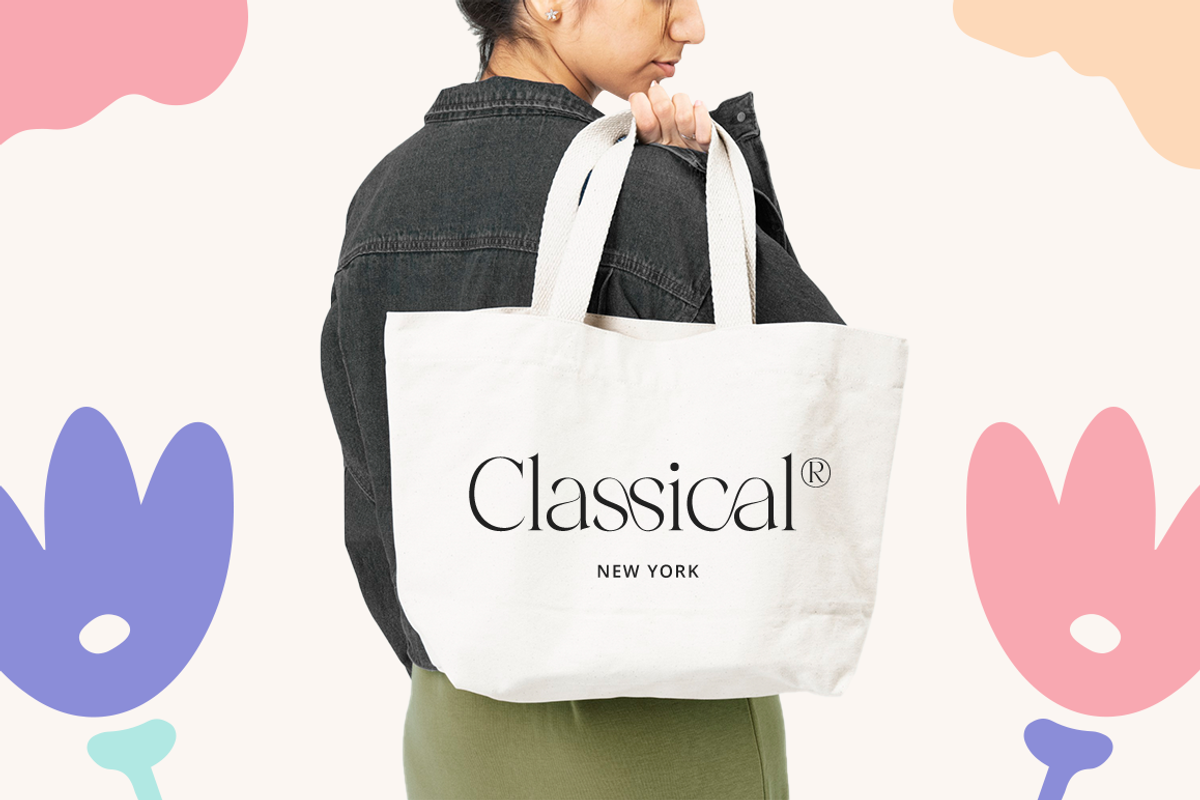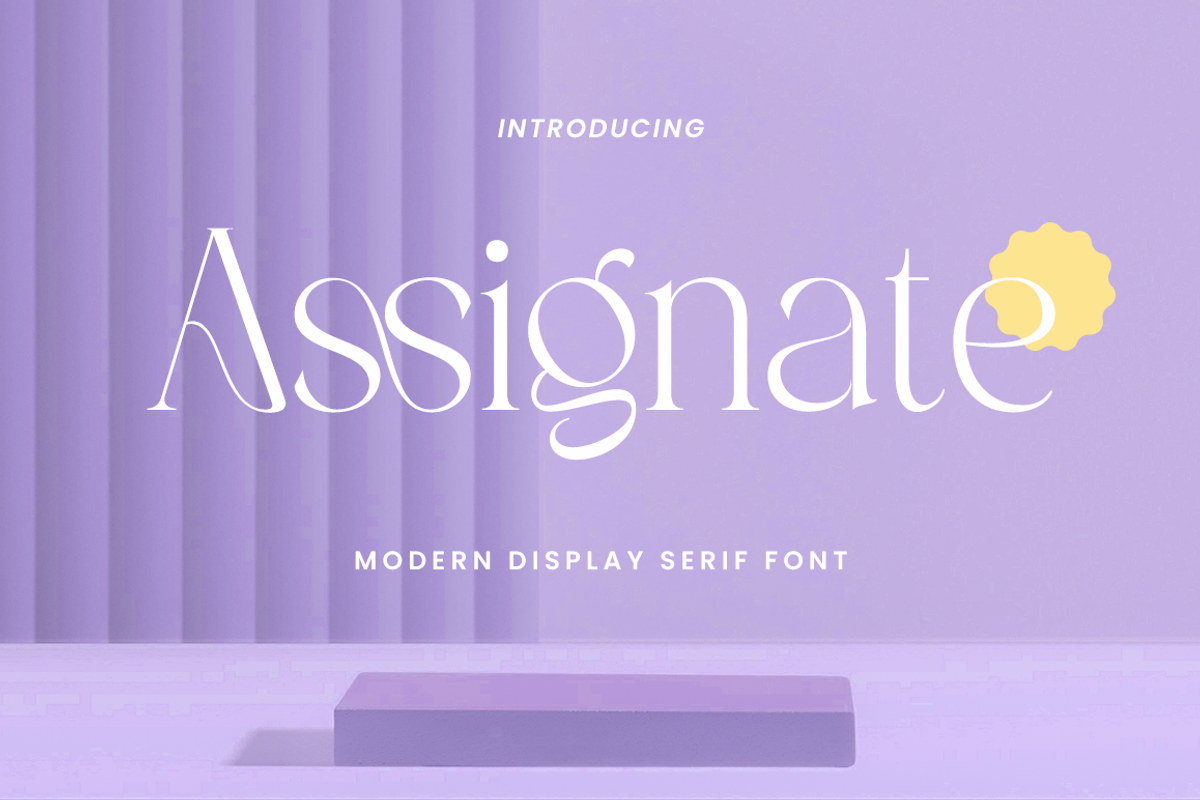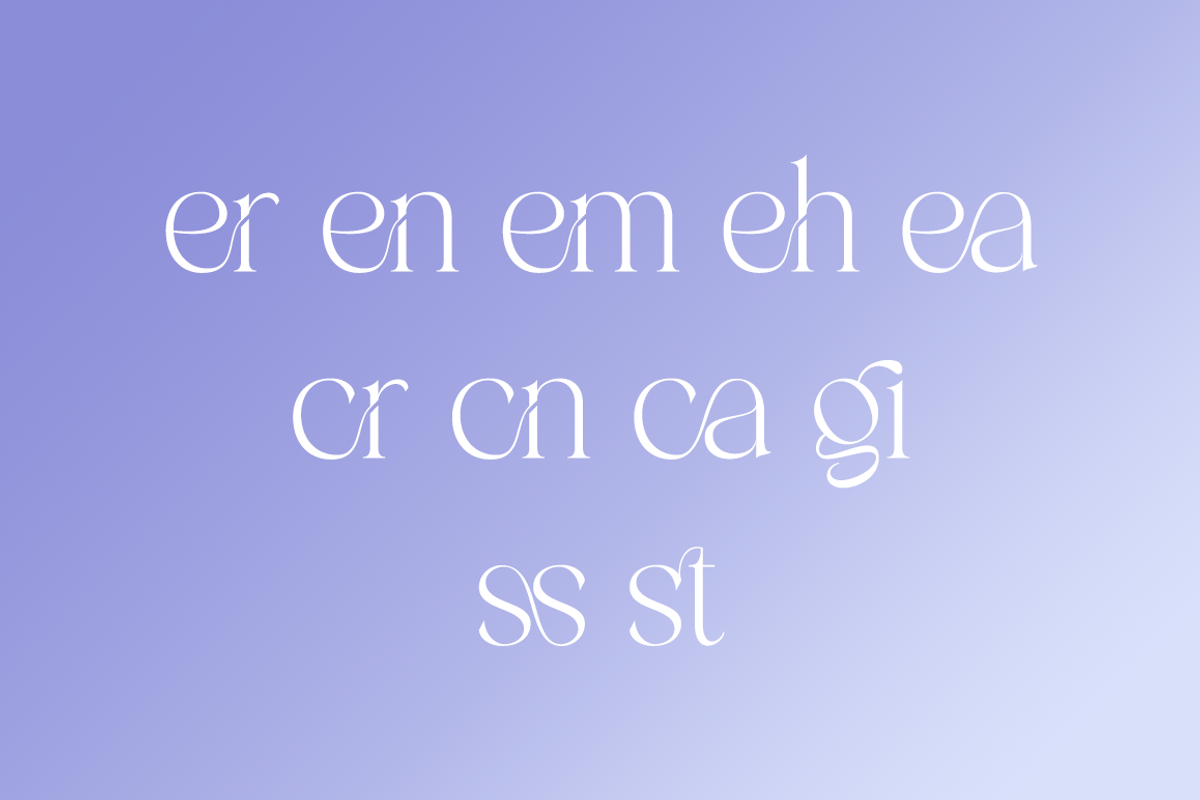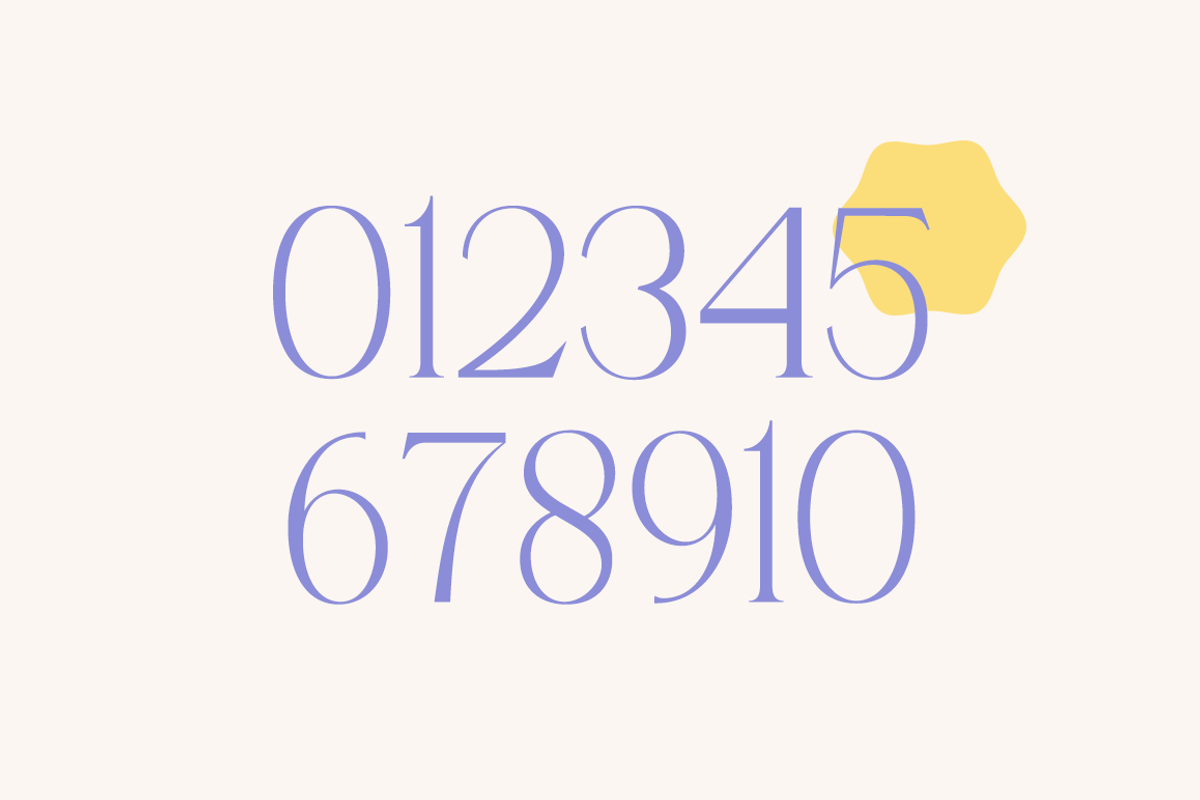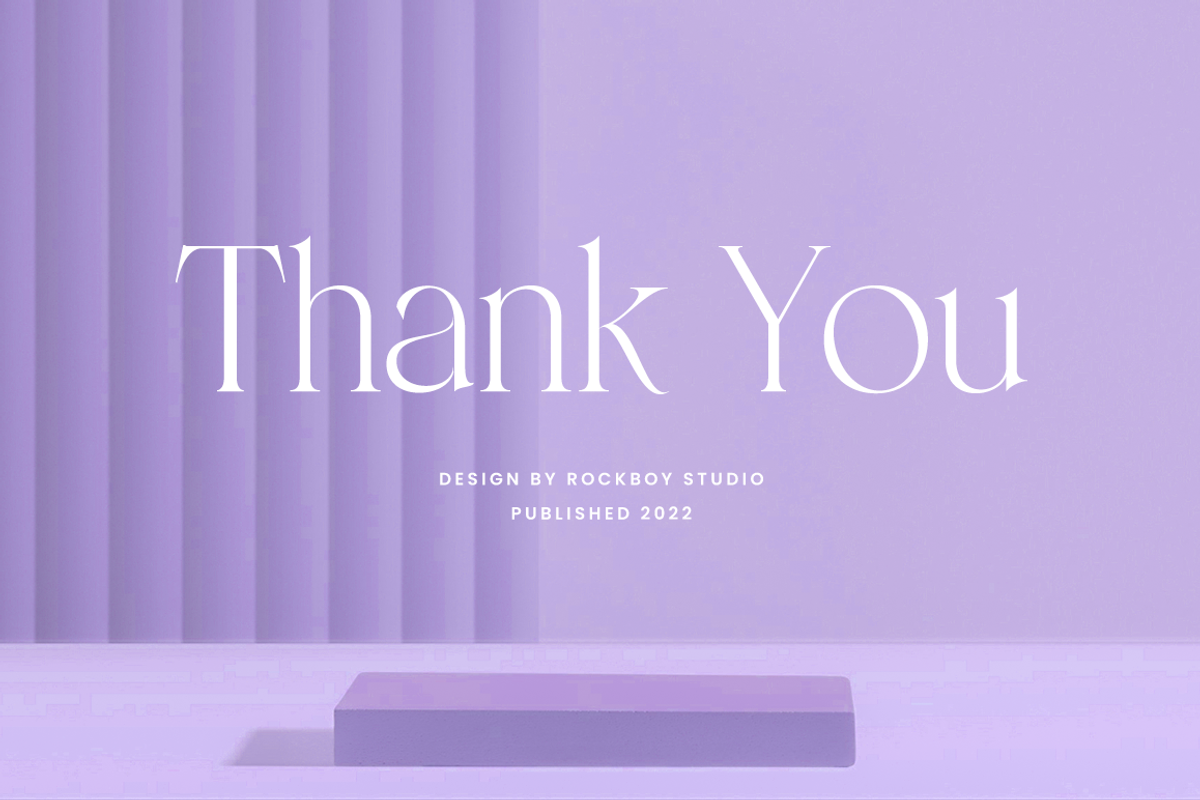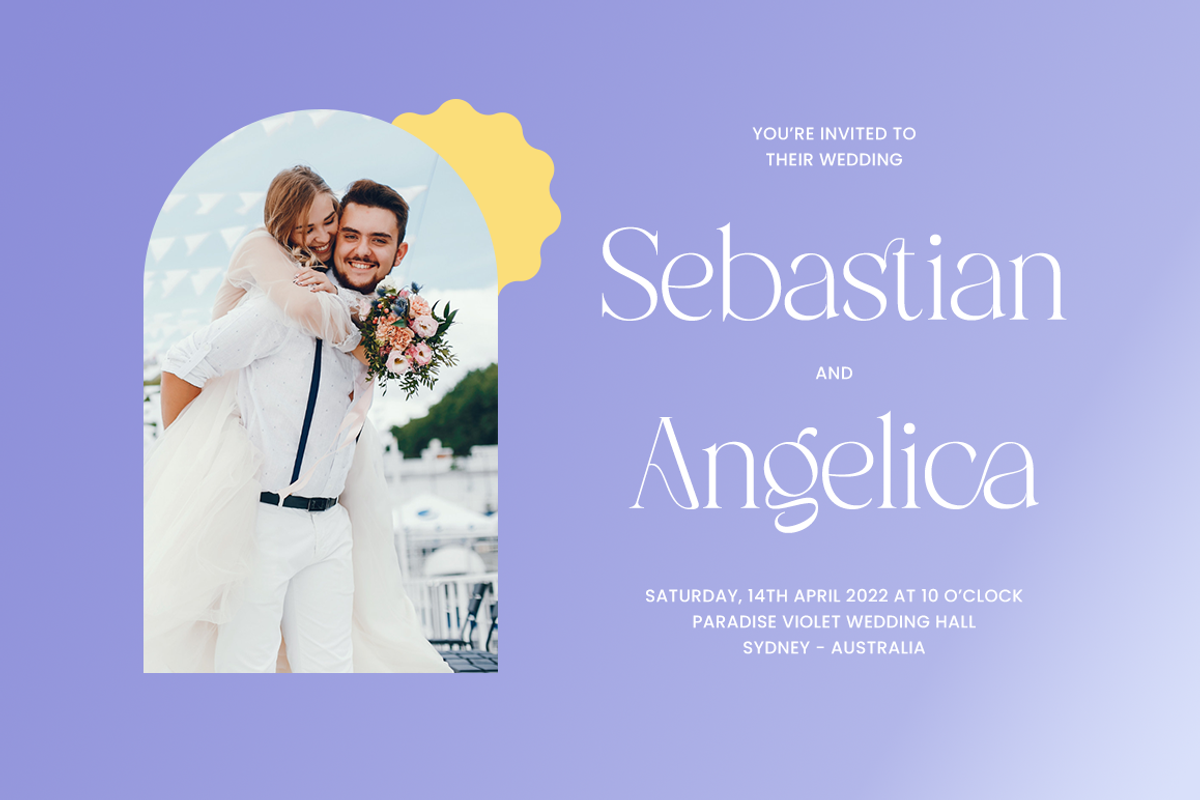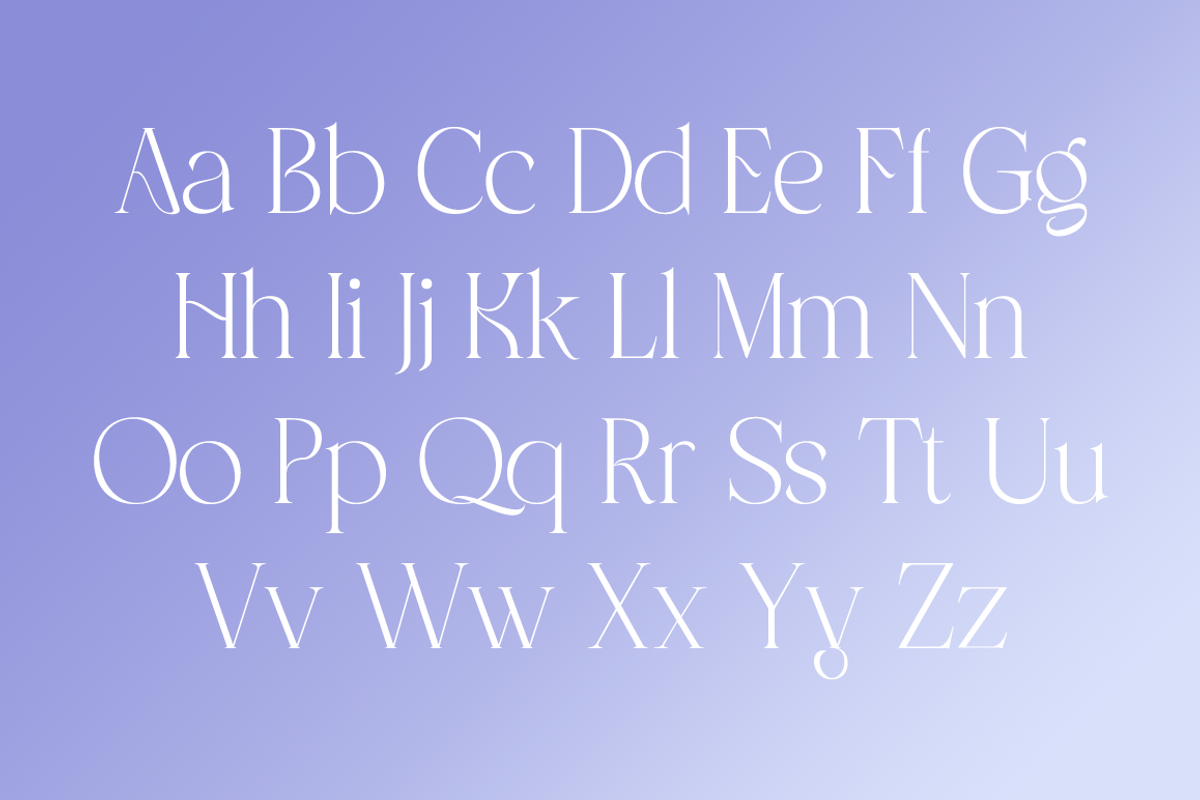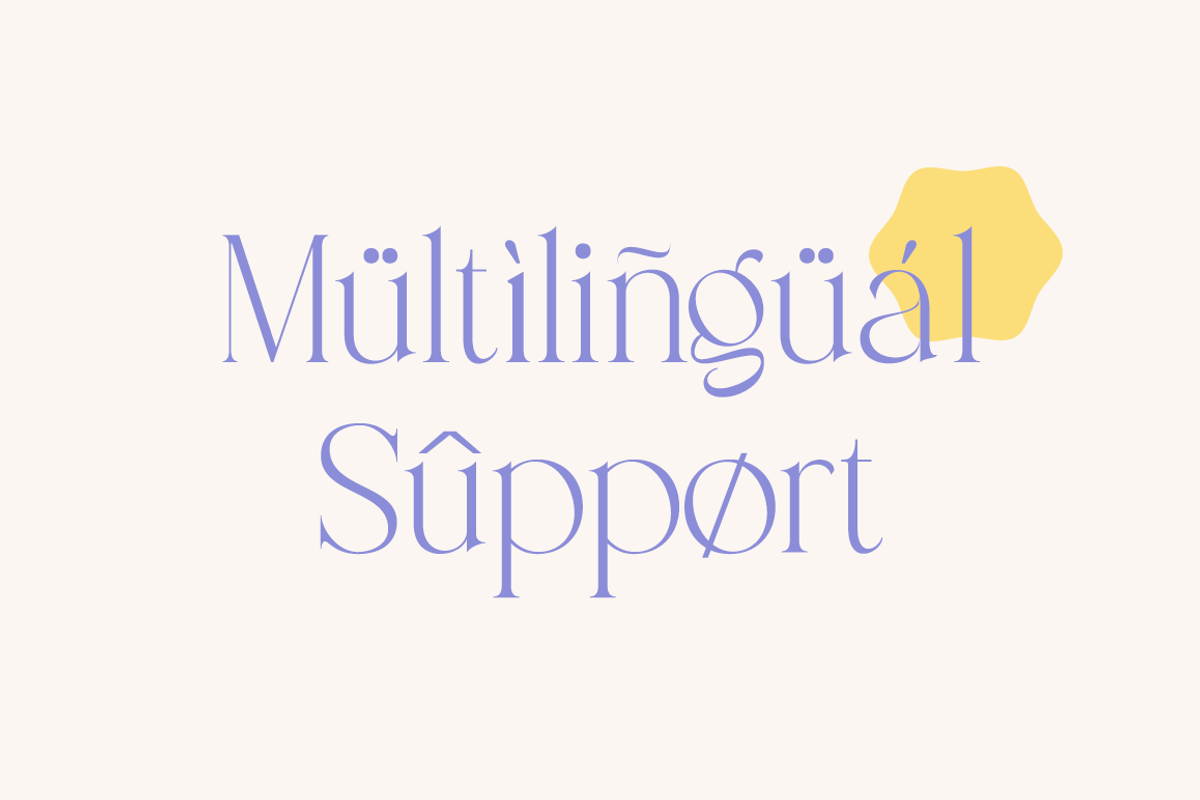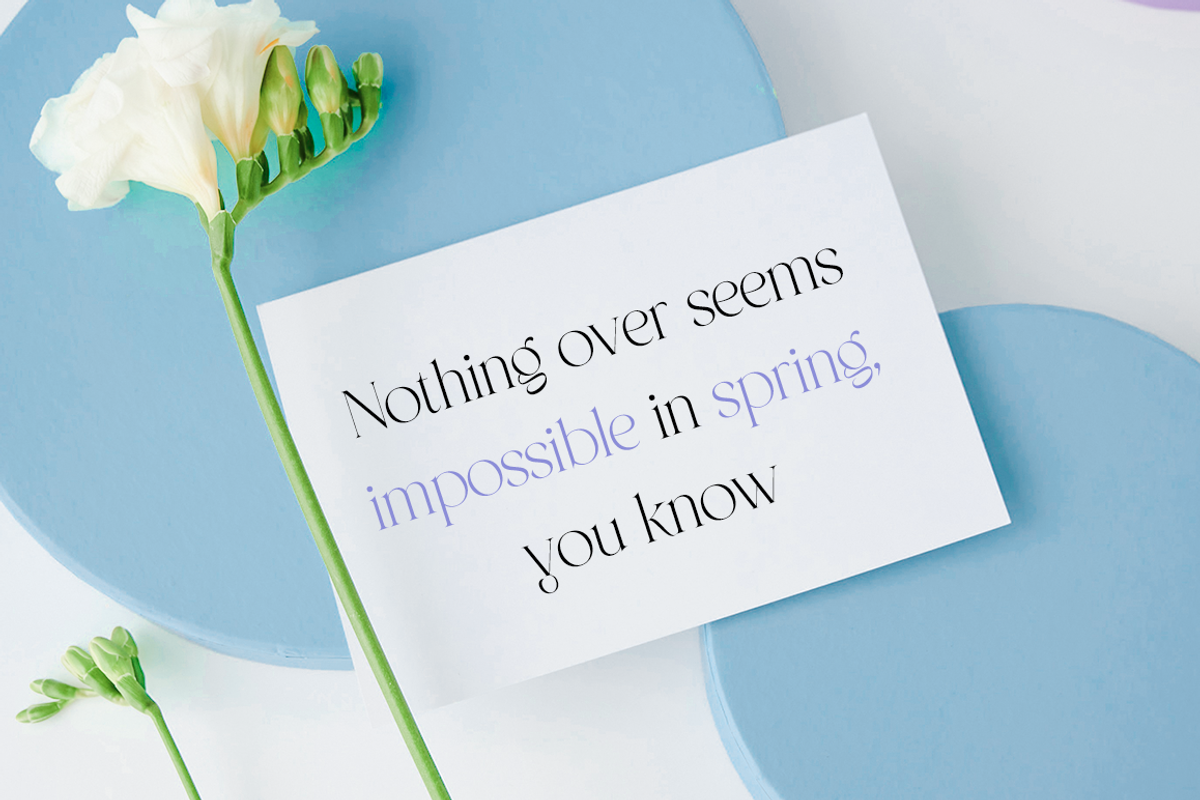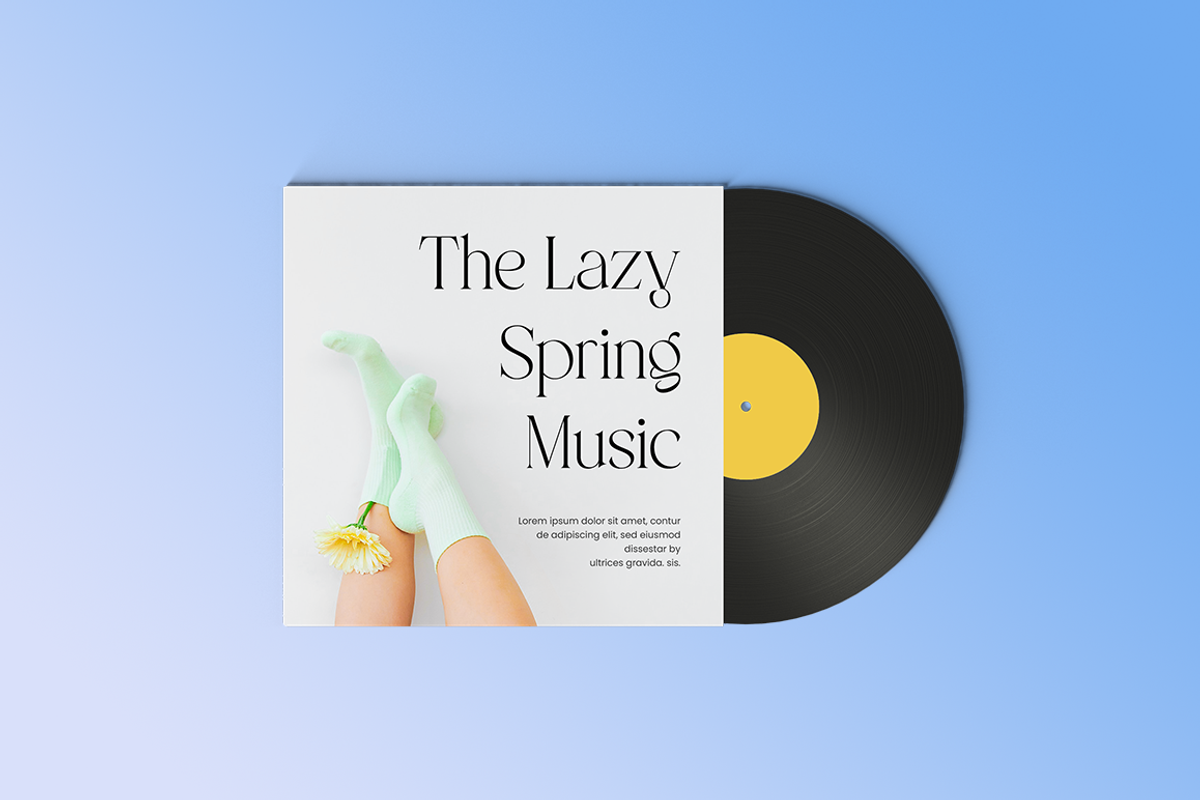
Assignate - Elegant Display Serif
Assignate is an elegant and thin lettered serif font. It maintains its classy calligraphic influences while feeling contemporary and fresh. Fall in love with it and bring your projects to the highest levels!